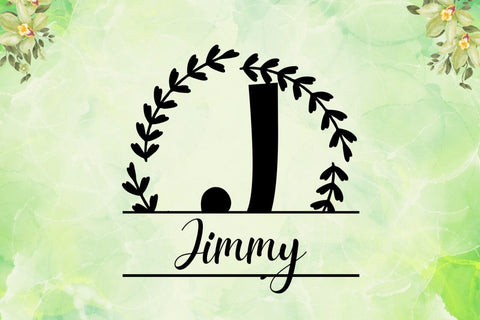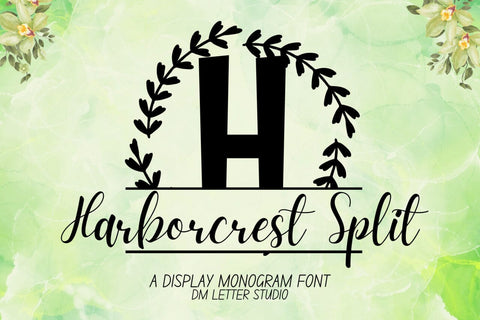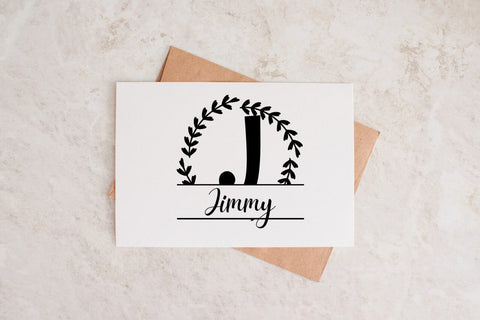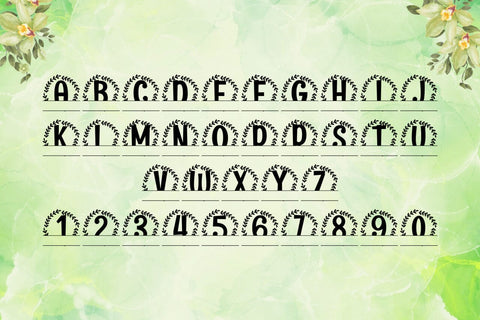
Harborcrest Split Monogram Font
Meet Harborcrest Split Monogram Font
Harborcrest Split Monogram Font turns any initial into a refined, name-ready emblem in seconds. Calm, confident letterforms carry a coastal-elegant feel, while a precise horizontal split creates natural space for names, dates, or short words. Because spacing stays even and counters remain open, designs look polished from tiny tags to statement wall art. Use it for wedding keepsakes, family name signs, door hangers, tumblers, ornaments, menus, and boutique packaging. Pair it with a clean sans or a light script and every layout stays readable, premium, and on-brand.
Where this split monogram font shines
Set a single hero initial, then place the family name inside the split for instant personalization. Next, try couple names for engagement gifts, venue names for wayfinding, or short words like Home, Welcome, and Love for seasonal décor. Since the proportions favor clarity, your files scale smoothly for Cricut, Silhouette, Glowforge, and laser projects. As a result, you can batch customization for markets and storefronts with consistent quality and minimal waste.
Design tips for Harborcrest Split Monogram
Keep the hero initial large and let white space breathe. Place the split at center or slightly low for a calm baseline. Choose a simple secondary font inside the split to protect legibility on small items. Because the style is airy and nautical-leaning, metallic foils, linen textures, and natural woods add instant value. Keep names concise so the composition stays balanced and clear at thumbnail size.
Uppercase alphabet optimized for split monograms
Matching lowercase, numbers, punctuation
Curves tuned for engraving, foil, laser cutting, and clean vinyl paths
Why makers choose this split monogram font
You want fast personalization that still feels bespoke. Harborcrest Split Monogram Font delivers consistent, high-end name designs in minutes while keeping your shop’s visual language cohesive across many product types.